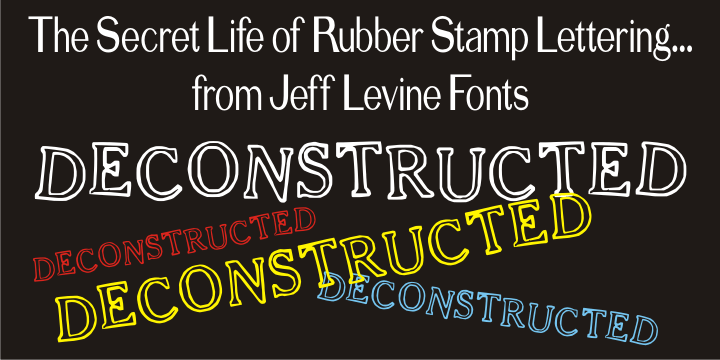
Deconstructed
Deconstructed JNL is another set of rubber stamp alphabet letters and numbers from a 1930s toy printing set. The original typeface of this set is Cheltenham Open. The stamps were printed out and scanned, creating this limited-character font with dual characteristics.
At small point sizes it replicates inked rubber stamp impressions, but in larger format it shows angular lines and erratic character shapes as if made from cut paper or lettering that was intentionally made to look damaged. Font Styles: